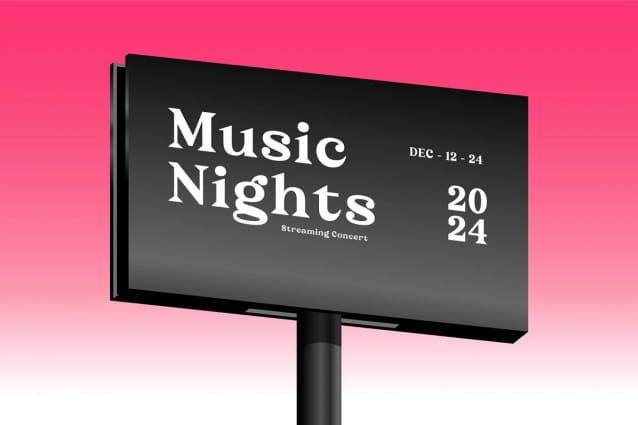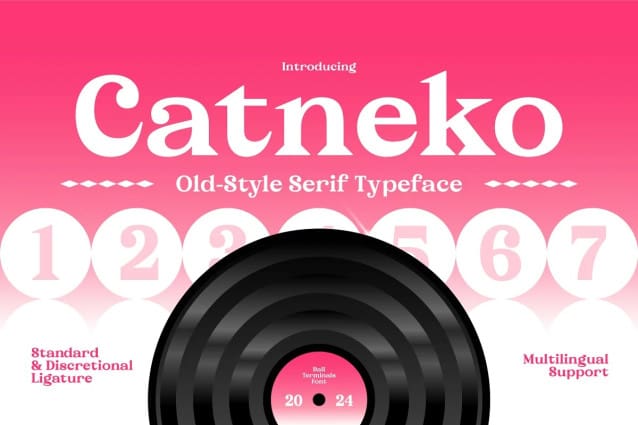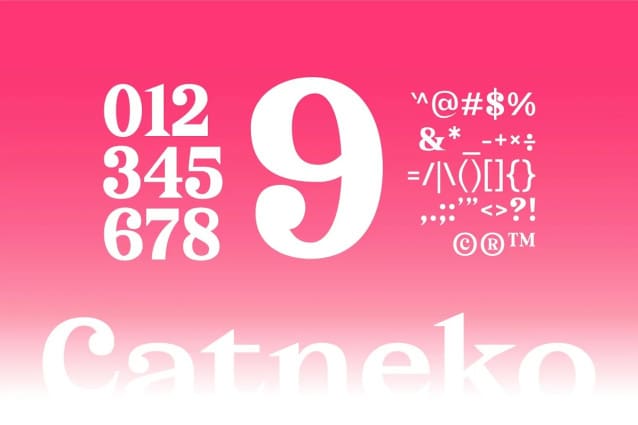
Catneko Font
Catneko Font – a timeless blend of vintage charm and modern elegance, meticulously crafted to bring a touch of sophistication to your design projects. This Old-Style Serif Typeface pays homage to classic typography while adding a contemporary twist, making it the perfect choice for a wide range of applications.
Catneko features: Uppercase & Lowercase Punctuation & Numbers Multilingual Support Ligatures Alternates
Elevate and explore the design possibilities with this Old-style font!